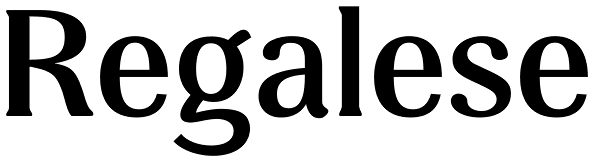
Regalese
Regalese is an elegant font with stylish rounded serifs, and it is perfectly suited to any occasion which requires a refined presentation, or when an air of distinction is appropriate: such as for logos and corporate identity, headlines, or bodies...